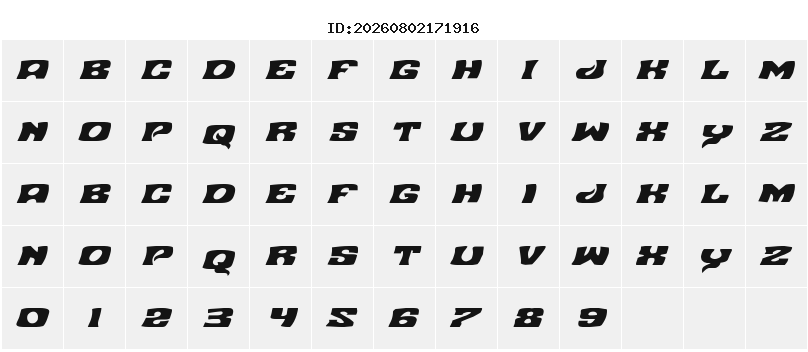
• Font Name: Nuevo Passion Expanded Italic
• Font Style: Expanded Italic
• Full Font Name: Nuevo Passion Expanded Italic
About Nuevo Passion Expanded Italic.ttf
Nuevo Passion Expanded Italic.ttf is a modern, elegant sans-serif font designed for ultimate readability and visual harmony. Perfect for branding, headlines, web design, and print materials.